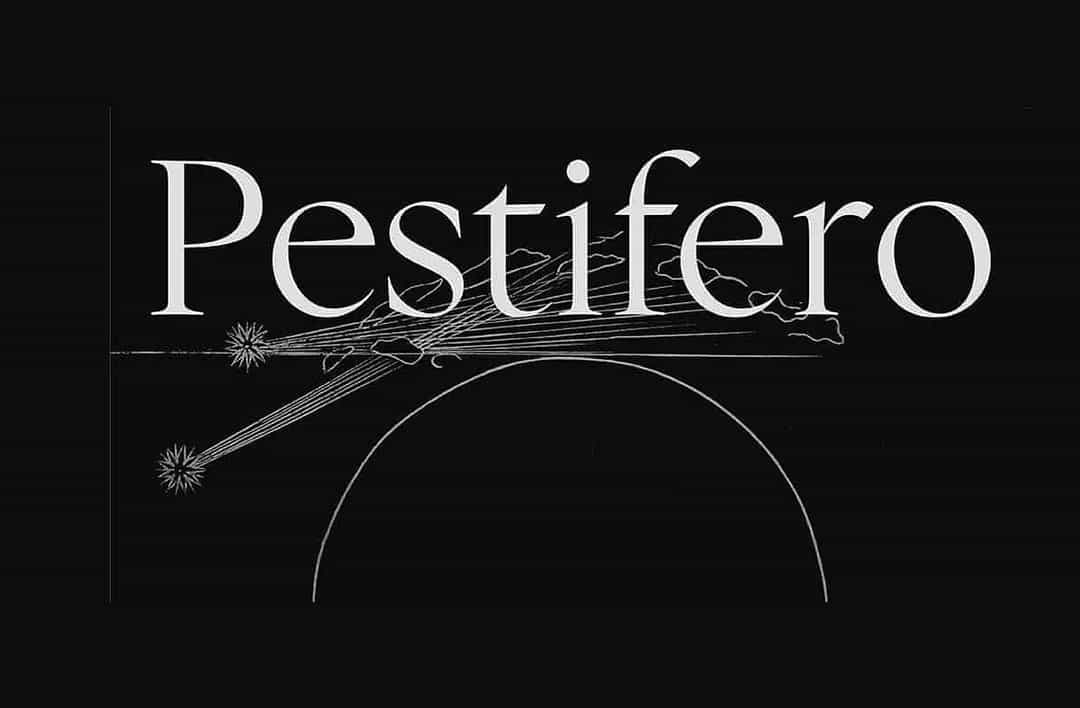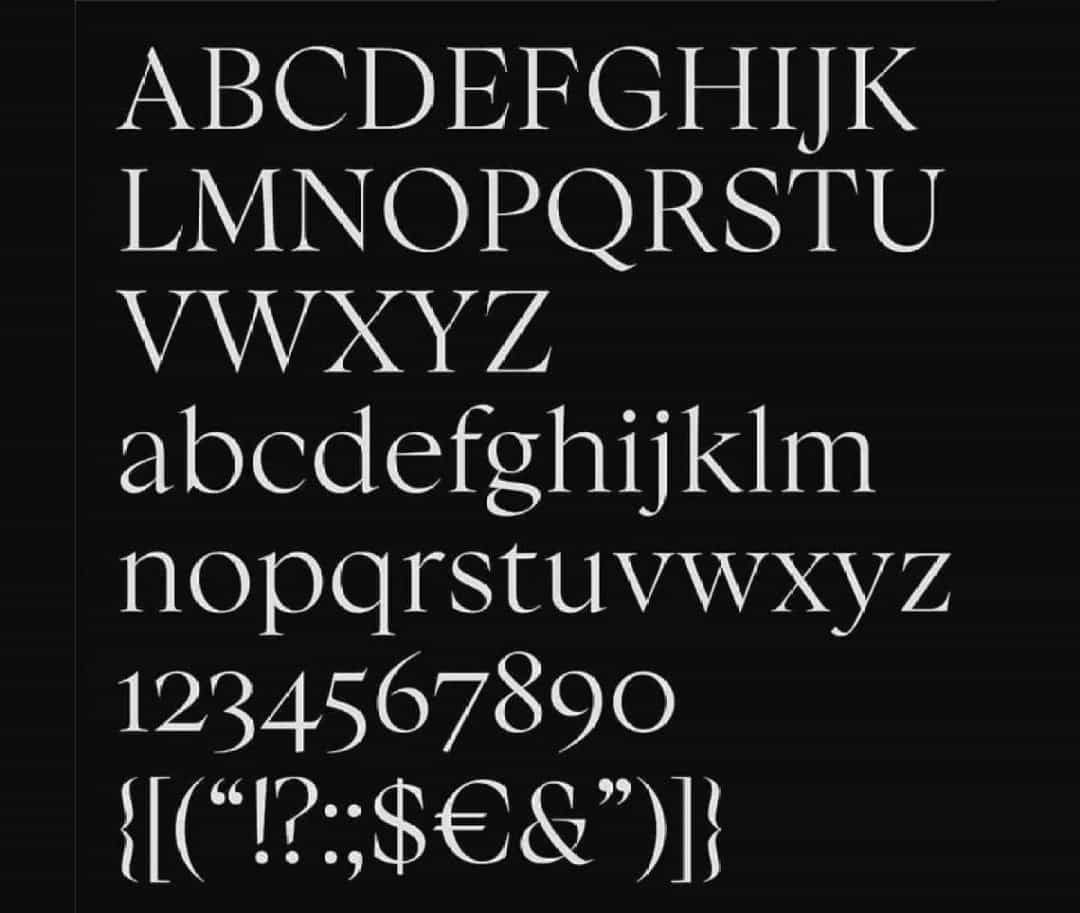
Pestifero is an elegant ligature serif typeface inspired by nostalgia for beauty in post-pandemic environments, drawing its aesthetic inspiration from various eras in history that were plagued by similar problems.